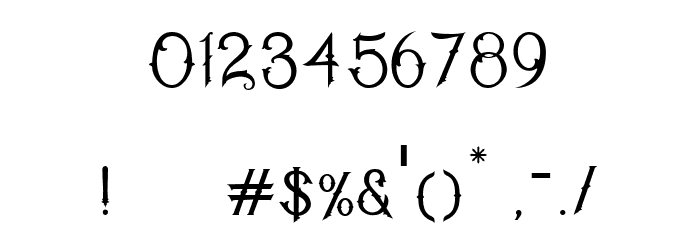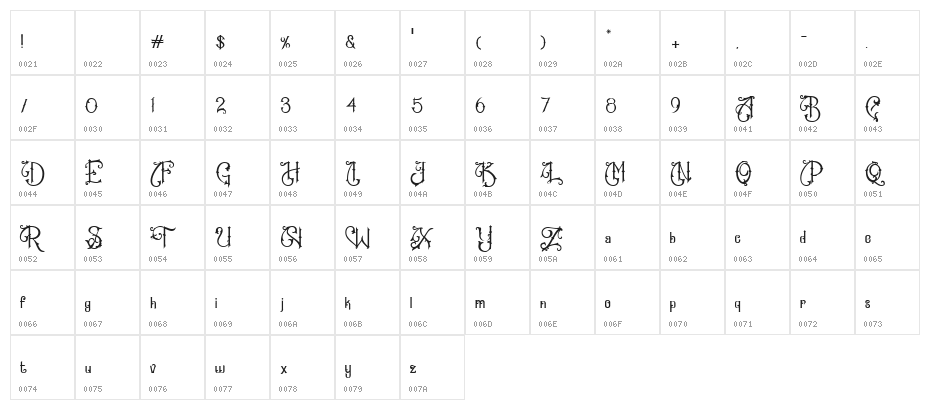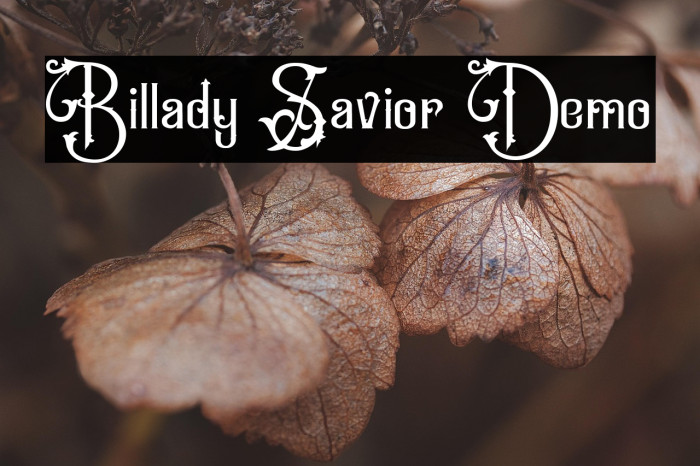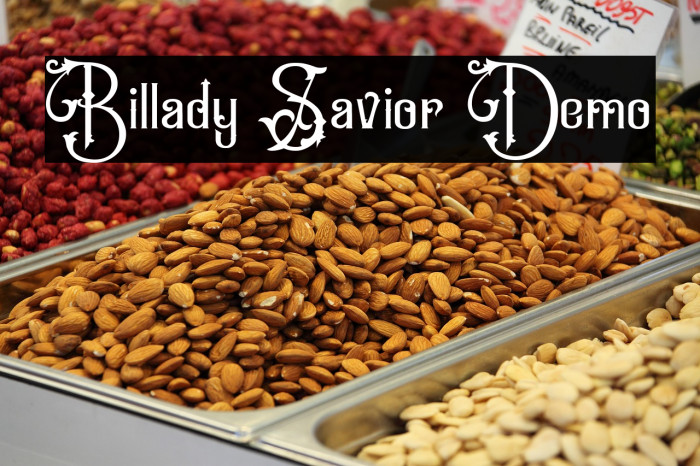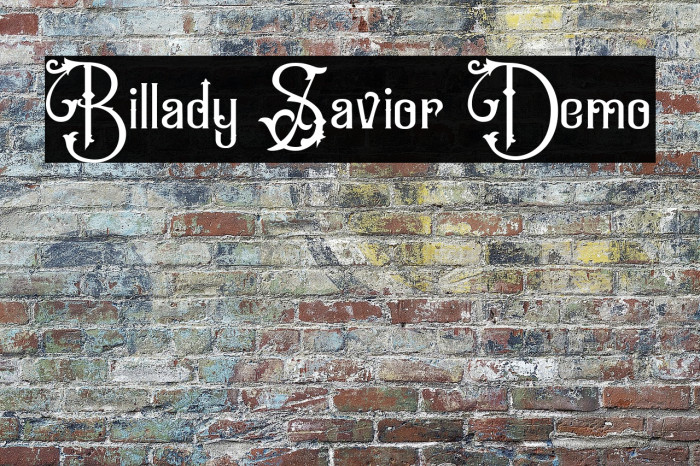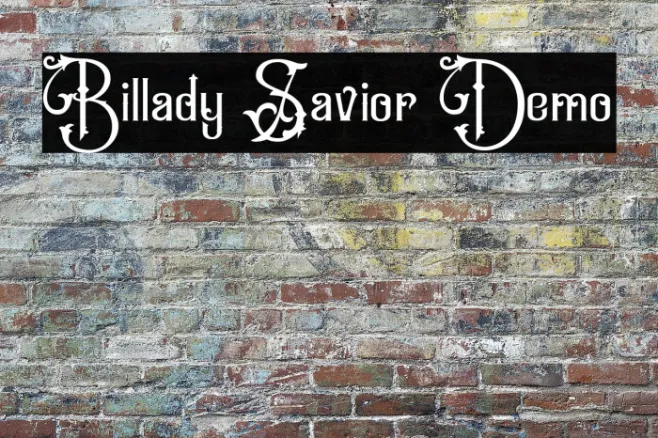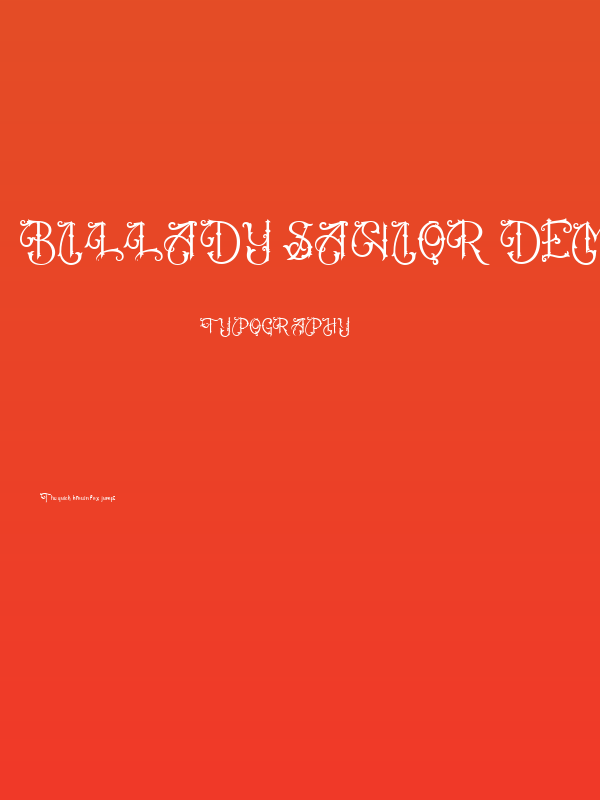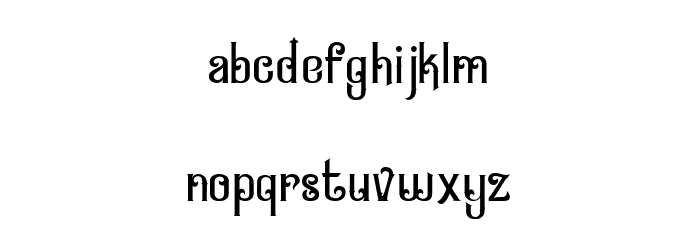
Billady Savior Demo Font
Billady Savior Demo Description
This font features an intricate and decorative style, characterized by elaborate swirls and embellishments that give it a unique, ornamental appearance. The uppercase letters are particularly ornate, with each character adorned with flourishes that extend from the main strokes, creating a sense of elegance and sophistication. The lowercase letters maintain a more straightforward design but still carry subtle decorative elements that complement the overall aesthetic. The numerals and special characters are consistent with this theme, offering a cohesive look across all glyphs. This font's distinct style makes it ideal for projects that require a touch of vintage charm and artistic flair.
| Overall Style | Vintage, Decorative |
| Proposed Projects | Ideal for wedding invitations, vintage-themed posters, artistic branding, and decorative signage. |